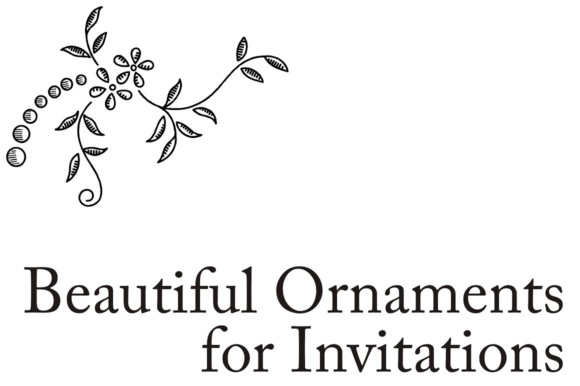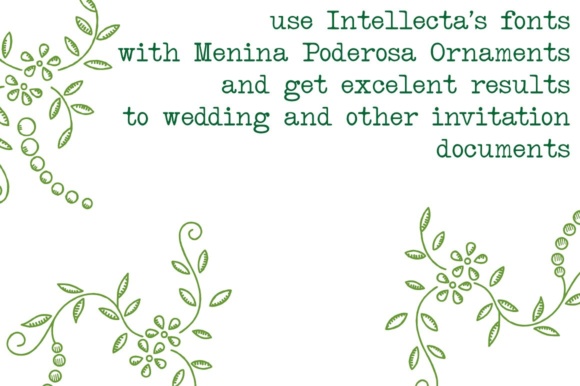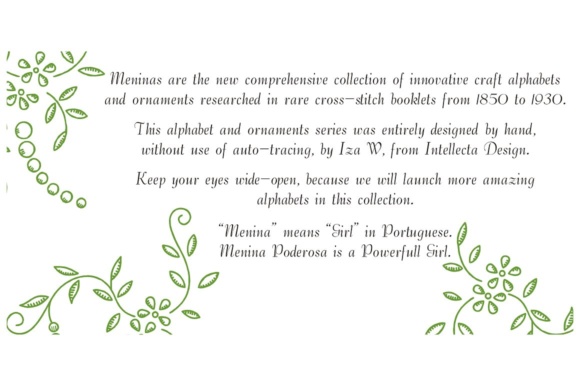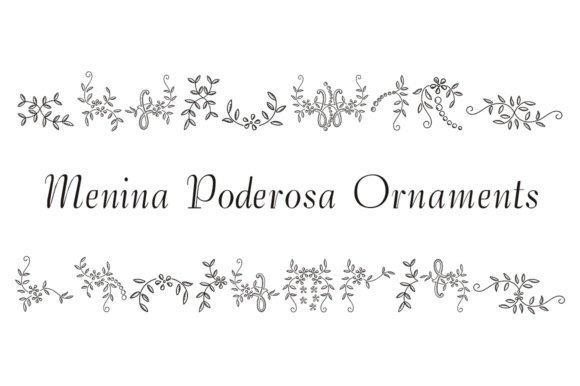
Introduction to Menina Poderosa Ornaments Font
Menina Poderosa Ornaments is a beautiful, comprehensive collection of twigs and other flora that was researched in cross-stitch booklets from 1850-1930.
This set was crafted by hand, and can add a gorgeous appeal to your works .